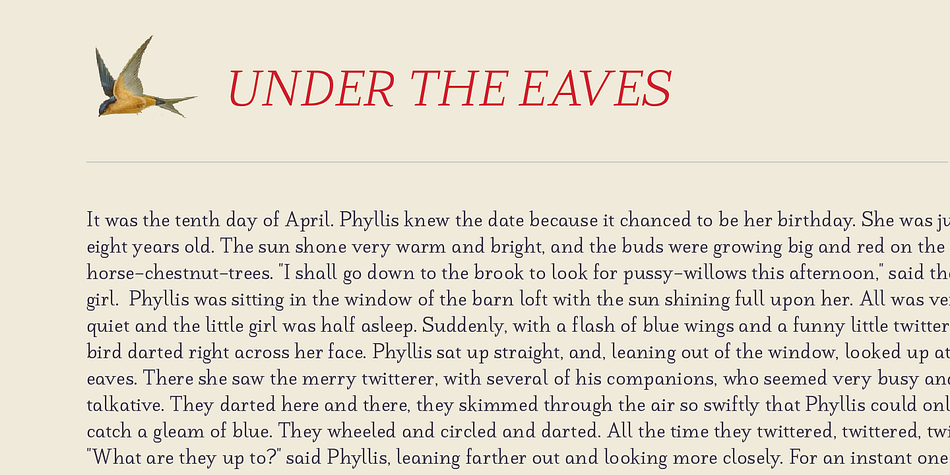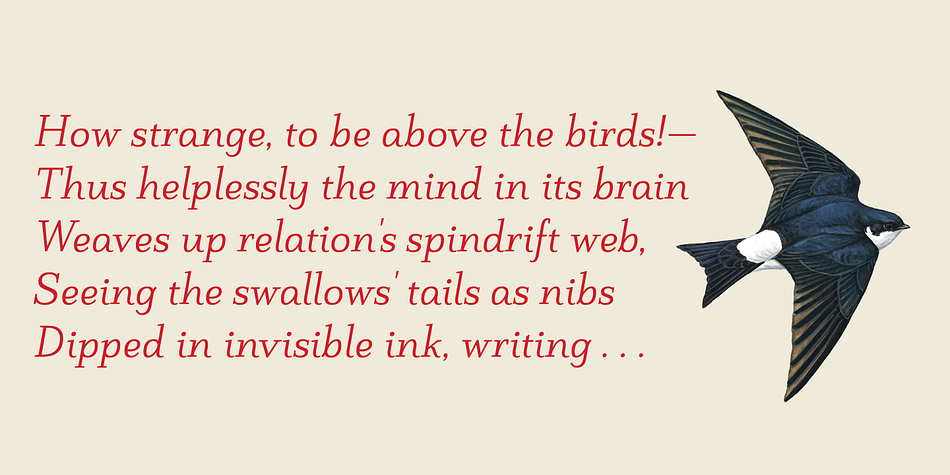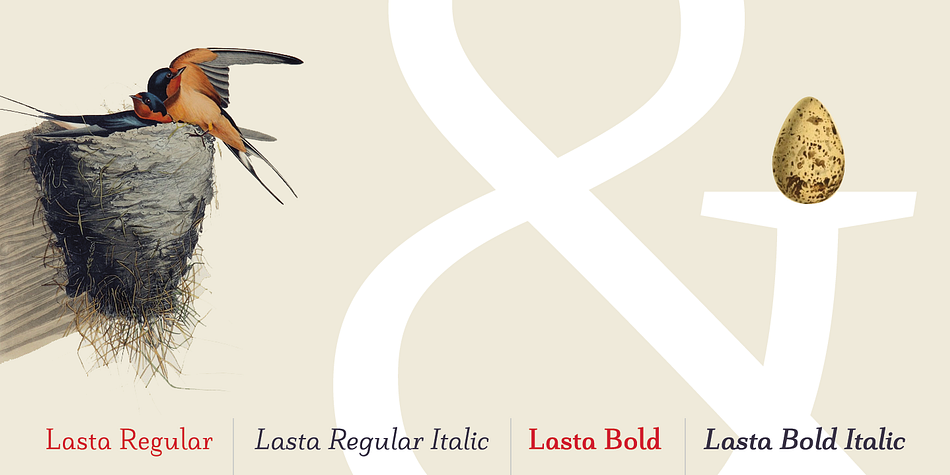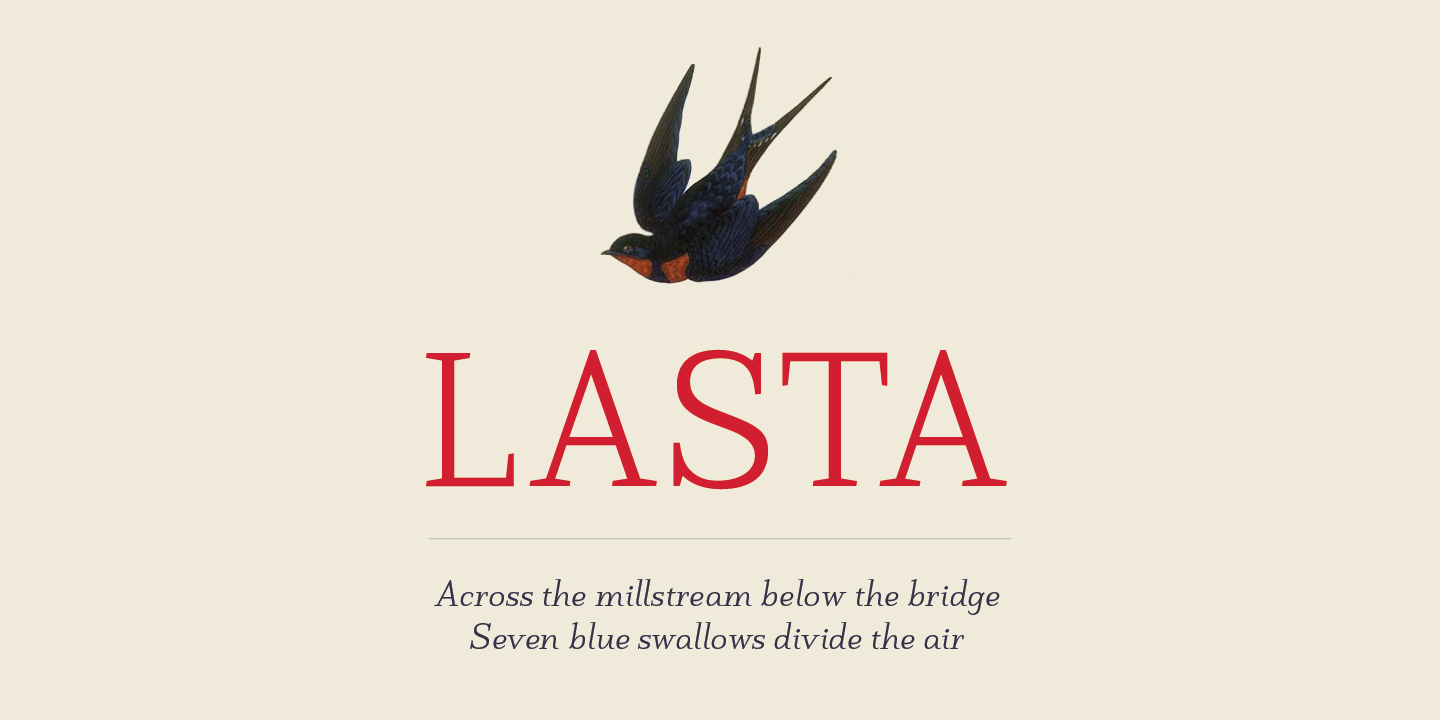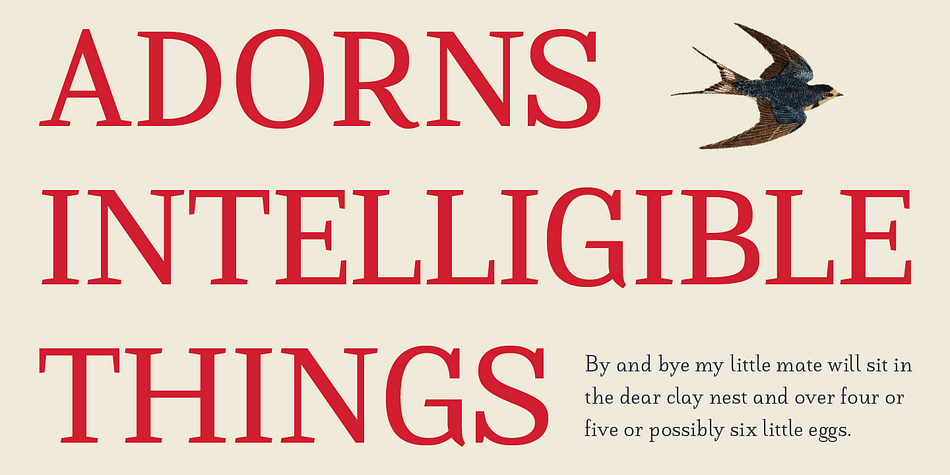
Lasta is a serif font family. This typeface has four styles and was published by Tour de Force Font Foundry.
Lasta is a small serif font family with simple elegant shapes, refreshing Italics and poetic endings. Containing 2 weights and 2 italics, with lower x-height which brings more air (empty space, white space ...) into paragraphs making text more graceful and legible. Thin serifs bring a small touch of dynamic into letter forms, just enough to bring specific tones to the paragraphs. Besides being mainly imagined as a full text family, Lasta is also suitable for titles or decorative typography, especially the Italics with their fancy curvy endings.